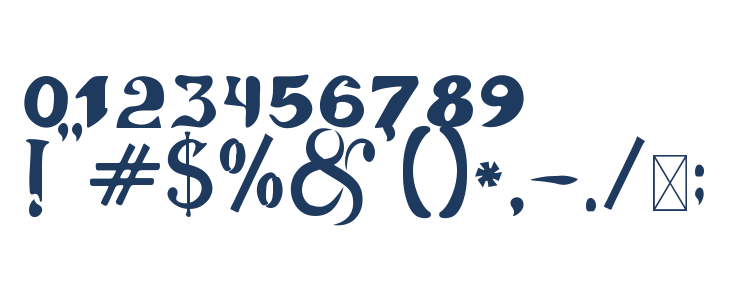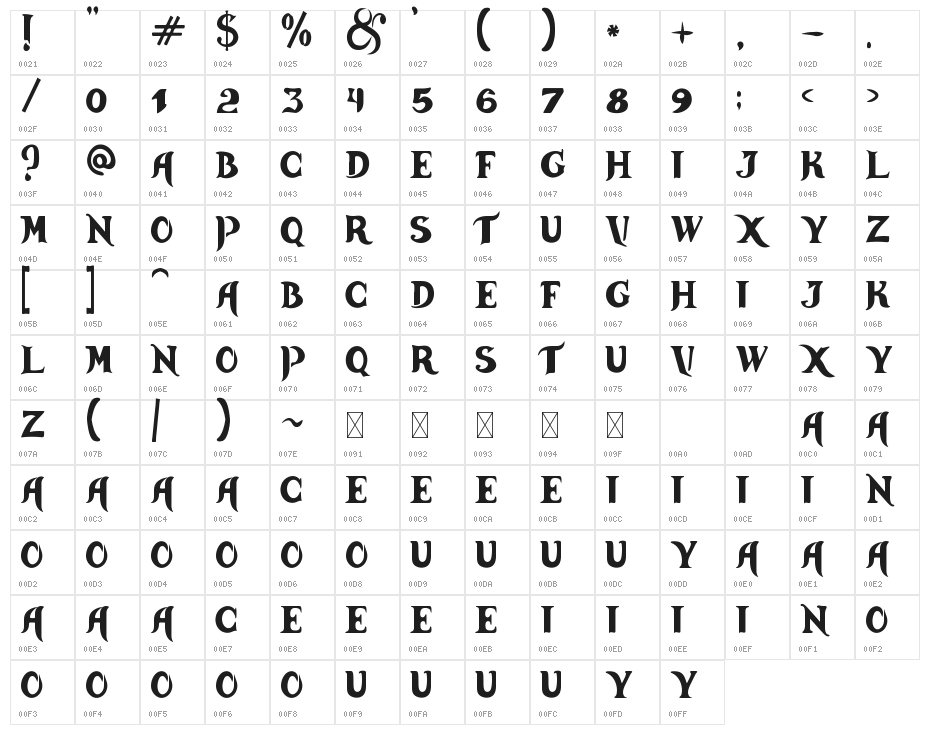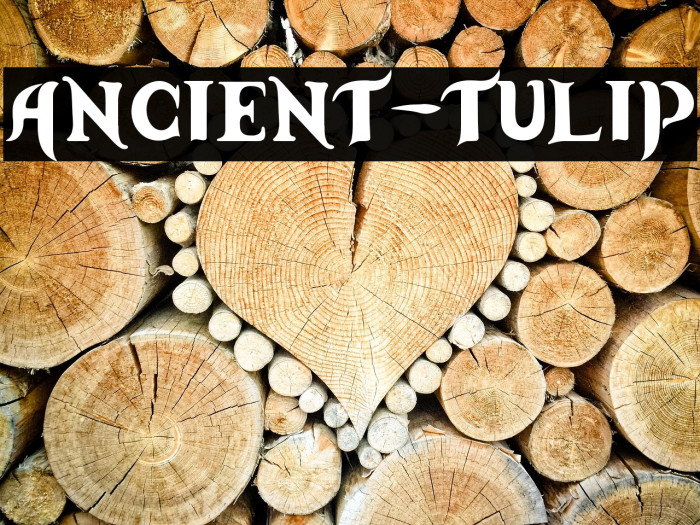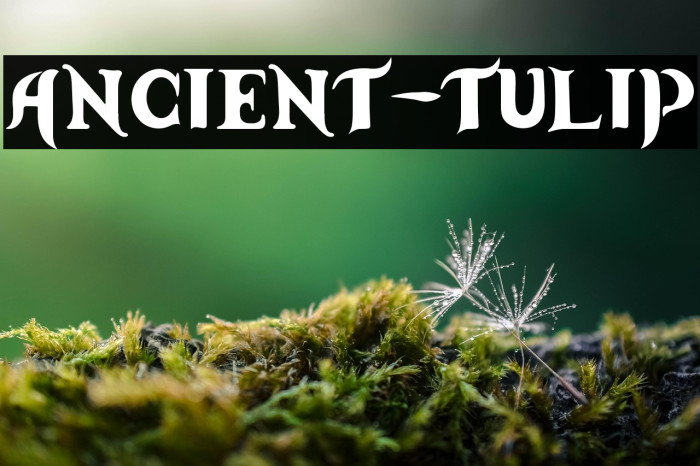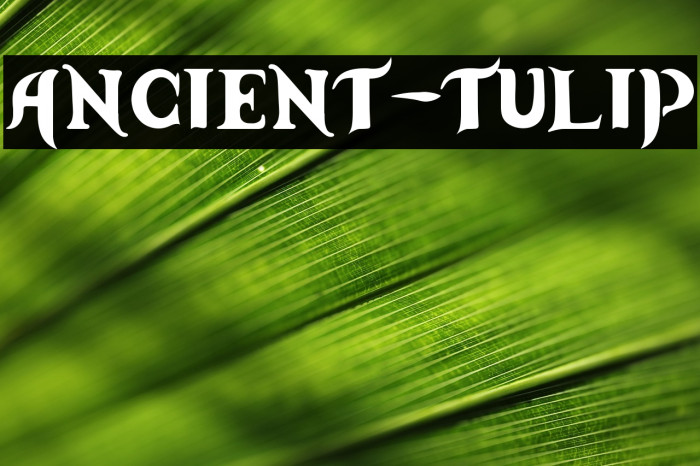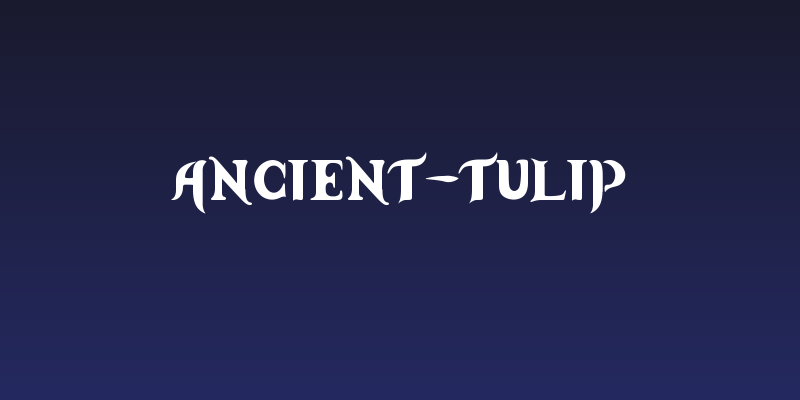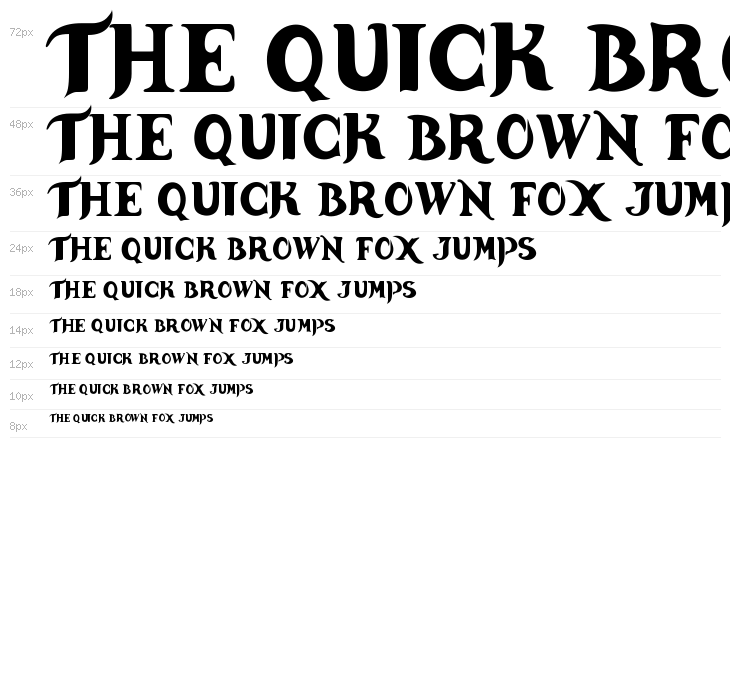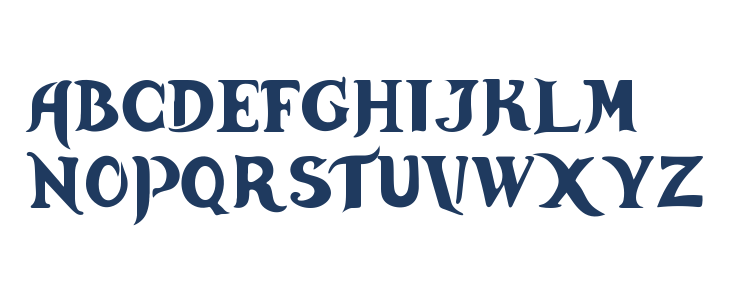
Ancient-Tulip Font
Ancient-Tulip Description
This font features a bold and dramatic style, reminiscent of ancient scripts with a modern twist. The characters are characterized by thick, sweeping strokes and sharp, angular serifs that give it a distinctive and powerful appearance. The uppercase and lowercase letters maintain a consistent style, with a slight flourish on certain characters that adds to its decorative nature. The numerals are equally bold, with unique curves and angles that make them stand out. Special characters are designed to match the overall aesthetic, ensuring a cohesive look across all text elements.
| Proposed Projects | Ideal for projects requiring a historical or fantasy theme, such as book covers, movie posters, or themed event invitations. |